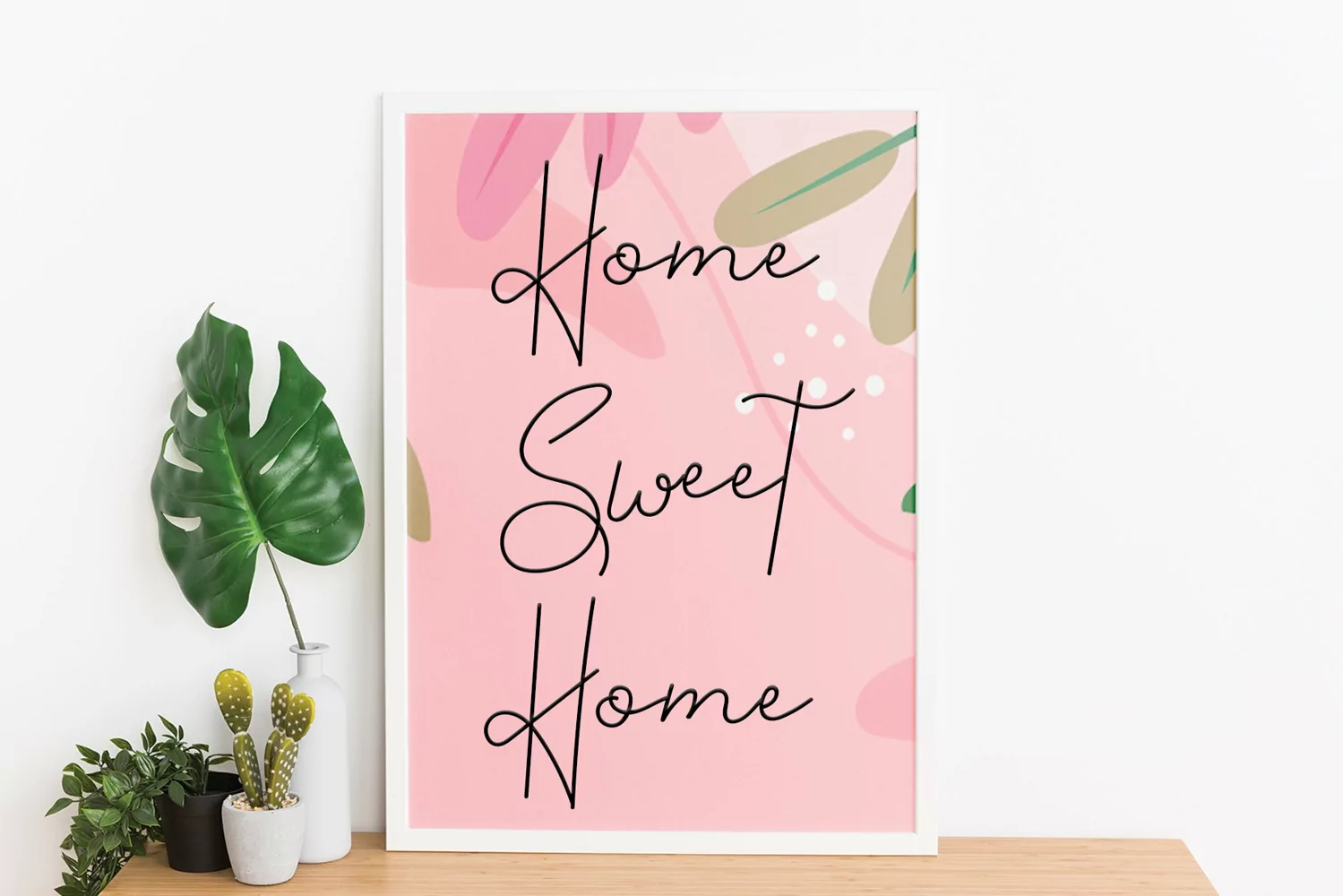
Introducing, this is our newest product, we call this product Yourself,
It looks amazing with sweet touches and beautiful curves in each letter. Yourself fonts are perfect for: wedding invitations, fashion magazines, logos, signatures, photography, watermarks, wall displays, social media,